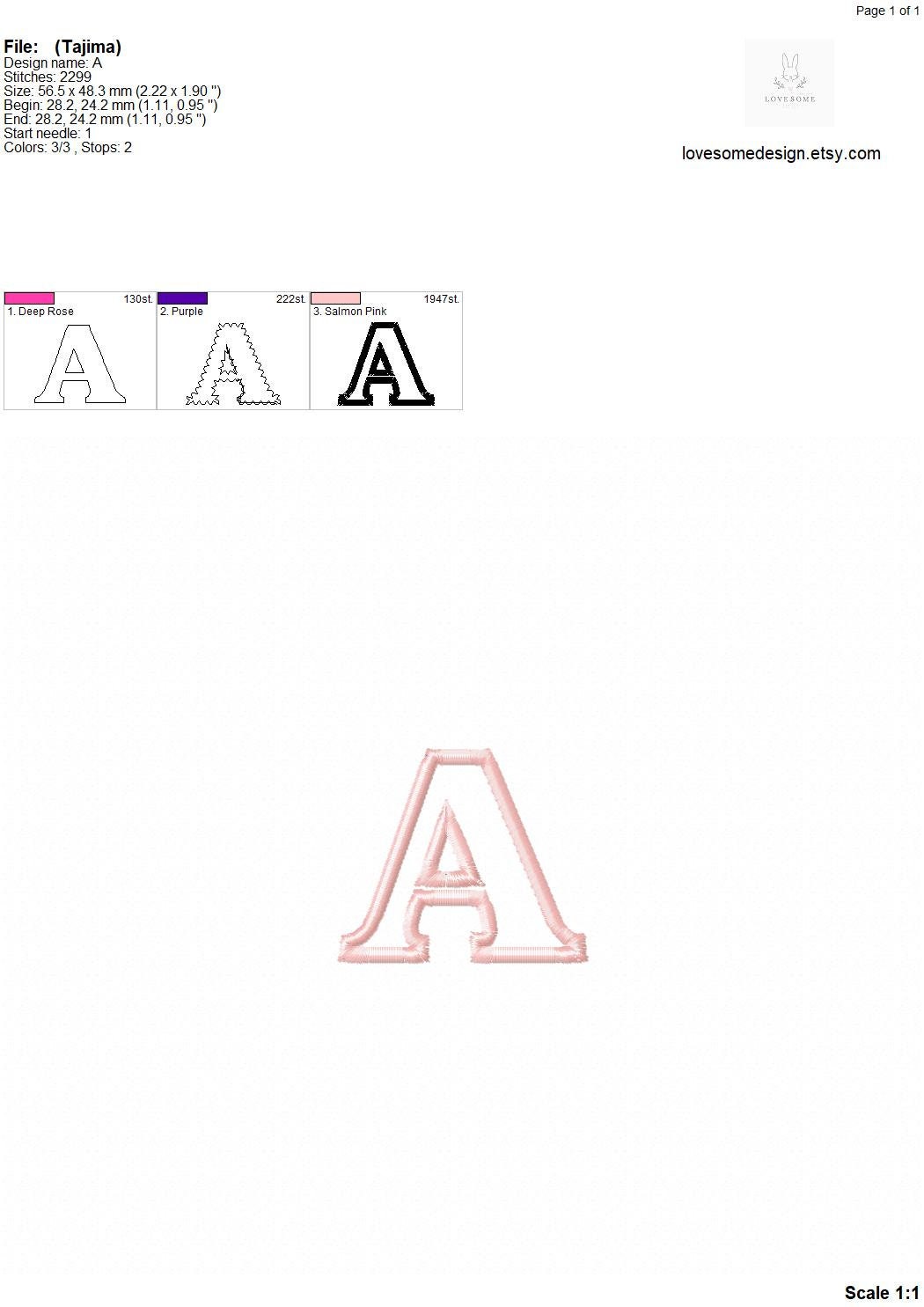
Vintage Applique 2inch Embroidery Font Retro Alphabet A-Z Machine Embroidery Files Digital Download | Lovesome Design
This listing features a machine embroidery retro font set which includes groovy embroidery files of 26 uppercase and 26 lowercase applique letters in 2inch size. (For the whole set, pls see the listing images.)